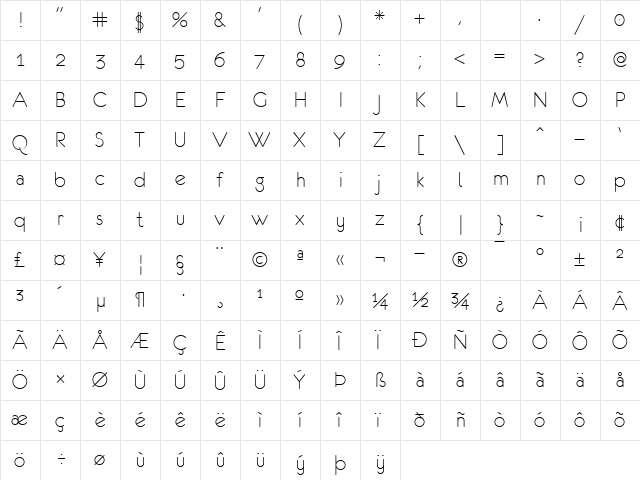
eurofurence light Regular
Design Context for eurofurence light Typeface
eurofurence light is a composed and adaptable typeface that performs quietly and consistently across a wide range of design contexts. Its slender proportions lend an understated elegance to any composition.